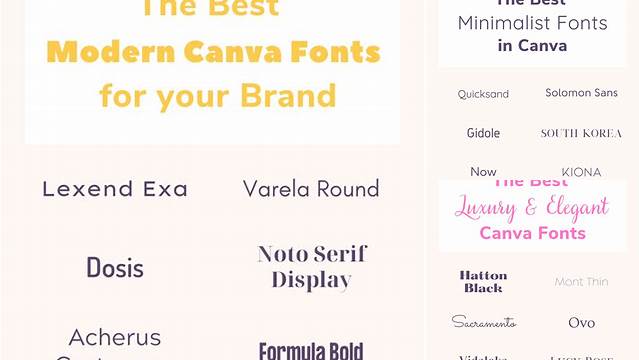
Coolest Fonts For Canva: The Ultimate Guide
Choosing the right font is crucial for creating visually appealing and effective designs in Canva. With countless options available, finding the perfect font can be overwhelming. This guide explores some of the coolest fonts for Canva, categorized to help you make informed decisions and elevate your designs. So, let's dive in and discover the perfect fonts to make your Canva projects shine!
1. Best Serif Fonts for Canva
Serif fonts are characterized by the small decorative strokes at the end of each character. They often convey a sense of tradition, authority, and elegance. When looking for the best serif fonts for Canva, consider options that are both readable and visually appealing. Popular choices include Playfair Display, known for its sophisticated and timeless appearance. It works well for headings and titles, adding a touch of class to any design. Another great option is Lora, a well-balanced serif font that is highly readable and suitable for body text. Its slightly curved serifs give it a modern yet elegant feel. For a more classic look, consider using Garamond, a font that has been used for centuries and remains a popular choice for its readability and timeless appeal. Remember, selecting the right serif font can significantly enhance the overall aesthetic of your Canva projects. So, experiment with different styles to find the perfect match for your design needs. Guys, don't underestimate the power of a good serif font!
2. Top Sans-Serif Fonts for Canva
Sans-serif fonts lack the decorative strokes found in serif fonts, giving them a cleaner and more modern appearance. The top sans-serif fonts for Canva are versatile and can be used in a wide range of designs, from logos and posters to social media graphics and presentations. One of the most popular choices is Montserrat, a geometric sans-serif font that is highly readable and works well in both headings and body text. Its clean lines and modern aesthetic make it a favorite among designers. Another excellent option is Open Sans, a humanist sans-serif font that is known for its readability and versatility. It is a great choice for body text, ensuring that your message is easily understood. For a more bold and impactful look, consider using Raleway, a sans-serif font with a distinctive style. It is particularly effective for headings and titles, drawing attention to your message. Choosing the right sans-serif font can make your Canva designs look professional and polished. So, take the time to explore different options and find the perfect fit for your projects.
3. Cool Display Fonts for Canva
Display fonts are designed to grab attention and make a statement. The cool display fonts for Canva are perfect for headings, titles, and other design elements that need to stand out. These fonts often have unique and eye-catching designs that can add personality and flair to your projects. One popular choice is Bebas Neue, a tall and narrow sans-serif font that is perfect for headlines and posters. Its bold and modern look makes it a great choice for creating impactful designs. Another interesting option is Lobster, a script font with a vintage feel. It is perfect for adding a touch of nostalgia to your designs. For a more playful and whimsical look, consider using Luckiest Guy, a hand-drawn font that is sure to catch the eye. These eye-catching fonts can transform your Canva designs from ordinary to extraordinary. So, experiment with different styles and find the perfect display font to make your message shine.
4. Best Script Fonts for Canva
Script fonts mimic the look of handwriting, adding a personal and elegant touch to your designs. The best script fonts for Canva can be used to create invitations, logos, and other designs that require a touch of sophistication. One popular choice is Brush Script MT, a classic script font that is widely recognized for its flowing lines and elegant curves. It is perfect for adding a touch of class to any design. Another great option is Pacifico, a casual and friendly script font that is perfect for creating a warm and inviting feel. For a more modern and stylish look, consider using Great Vibes, a script font with a clean and contemporary design. Selecting the right script font can add a touch of personality and charm to your Canva projects. So, explore different styles and find the perfect script font to convey your message.
5. Modern Fonts for Canva
Modern fonts in Canva are characterized by their clean lines, geometric shapes, and minimalist design. They are perfect for creating a sleek and contemporary look in your designs. One popular choice is Montserrat, a versatile sans-serif font that works well in a variety of contexts. Its clean and modern aesthetic makes it a favorite among designers. Another great option is Raleway, a sans-serif font with a distinctive style. It is particularly effective for headings and titles, drawing attention to your message. For a more subtle and understated look, consider using Lato, a sans-serif font that is known for its readability and neutrality. Experimenting with modern fonts is essential for achieving a contemporary feel in your Canva projects. So, try out different styles and find the perfect modern font to complement your designs.
6. Elegant Fonts for Canva
Elegant fonts in Canva exude sophistication, grace, and refinement. They are often used in designs that aim to convey a sense of luxury or exclusivity. One popular choice is Playfair Display, a serif font that is known for its elegant and timeless appearance. It works well for headings and titles, adding a touch of class to any design. Another great option is Lora, a well-balanced serif font that is highly readable and suitable for body text. Its slightly curved serifs give it a modern yet elegant feel. For a more delicate and refined look, consider using Mrs. Eaves, a serif font with a classic and timeless appeal. Choosing the right elegant font can elevate your Canva designs and create a lasting impression. So, explore different options and find the perfect elegant font to enhance your projects.
7. Professional Fonts for Canva
Professional fonts in Canva are essential for creating designs that convey credibility, competence, and reliability. These fonts are typically clean, readable, and versatile, making them suitable for a wide range of business and corporate applications. One popular choice is Open Sans, a humanist sans-serif font that is known for its readability and versatility. It is a great choice for body text, ensuring that your message is easily understood. Another excellent option is Roboto, a sans-serif font that is designed for readability on screens. It is a great choice for websites, presentations, and other digital media. For a more formal and authoritative look, consider using Arial, a classic sans-serif font that is widely used in business and corporate settings. Selecting the right professional font can enhance the credibility and impact of your Canva designs. So, take the time to explore different options and find the perfect fit for your projects.
8. Bold Fonts for Canva
Bold fonts in Canva are designed to grab attention and make a statement. They are perfect for headings, titles, and other design elements that need to stand out. One popular choice is Impact, a condensed sans-serif font that is widely used for headlines and posters. Its bold and impactful look makes it a great choice for creating attention-grabbing designs. Another excellent option is Bebas Neue, a tall and narrow sans-serif font that is perfect for headlines and posters. Its bold and modern look makes it a great choice for creating impactful designs. For a more subtle yet effective look, consider using Montserrat Bold, a bold version of the popular Montserrat font. Choosing the right bold font can make your Canva designs more impactful and memorable. So, experiment with different styles and find the perfect bold font to make your message shine.
9. Unique Fonts for Canva
Unique fonts in Canva can add personality and flair to your designs. These fonts often have distinctive and eye-catching designs that can help your projects stand out from the crowd. One popular choice is Amatic SC, a hand-drawn sans-serif font that is perfect for adding a touch of whimsy to your designs. Another interesting option is Lobster, a script font with a vintage feel. It is perfect for adding a touch of nostalgia to your designs. For a more playful and quirky look, consider using Luckiest Guy, a hand-drawn font that is sure to catch the eye. Exploring unique fonts is a great way to express your creativity and make your Canva designs more memorable. So, don't be afraid to experiment with different styles and find the perfect unique font to complement your projects.
10. Free Fonts for Canva
Free fonts for Canva are a great resource for designers on a budget. Canva offers a wide selection of free fonts that can be used in your projects without any cost. These fonts range from classic serif fonts to modern sans-serif fonts, providing you with a variety of options to choose from. Some popular free fonts for Canva include Open Sans, Montserrat, and Lato. These fonts are all highly readable and versatile, making them suitable for a wide range of designs. Utilizing free fonts is a smart way to save money while still creating high-quality designs in Canva. So, take advantage of the free font options available and enhance your projects without breaking the bank.
11. Font Pairing Tips for Canva
Font pairing is the art of combining two or more fonts in a way that is visually appealing and enhances the overall design. In Canva, effective font pairing can significantly improve the readability and aesthetic appeal of your projects. A general rule of thumb is to pair a serif font with a sans-serif font. For example, you could pair Playfair Display (a serif font) with Montserrat (a sans-serif font). This combination creates a balance between elegance and modernity. Another tip is to use fonts from the same family. For example, you could pair Montserrat Regular with Montserrat Bold. This creates a cohesive look while adding visual interest. Remember to consider the overall tone and style of your design when choosing fonts. Mastering font pairing can elevate your Canva designs and make them more visually appealing. So, experiment with different combinations and find the perfect pairings for your projects.
12. Using Canva Font Combinations
Canva font combinations are pre-designed pairings that take the guesswork out of choosing fonts. Canva offers a variety of font combinations that are carefully curated to work well together. These combinations can be a great starting point for your designs, providing you with a solid foundation to build upon. To use a Canva font combination, simply select the text element in your design and choose one of the pre-designed combinations from the font menu. You can then customize the fonts further to suit your specific needs. Leveraging Canva font combinations can save you time and effort while ensuring that your designs look professional and polished. So, explore the available combinations and find the perfect pairings for your projects.
13. How to Upload Fonts to Canva
Uploading fonts to Canva allows you to use custom fonts that are not included in the Canva font library. This can be particularly useful if you have a specific font that you want to use for branding purposes or if you simply want to add a unique touch to your designs. To upload a font to Canva, you must have a Canva Pro account. Once you have a Canva Pro account, you can upload fonts by going to the Brand Kit section of your account settings. From there, you can upload your font files and start using them in your designs. Uploading custom fonts can greatly expand your design possibilities in Canva. So, if you have a specific font that you want to use, consider upgrading to Canva Pro and uploading your font files.
14. Font Sizes for Canva Designs
Choosing the right font sizes for your Canva designs is crucial for ensuring readability and visual appeal. The ideal font size will depend on the specific design and the context in which it will be used. For headings and titles, you will typically want to use a larger font size to draw attention to the message. For body text, you will want to use a smaller font size that is comfortable to read. A general guideline is to use a font size of 16-18 points for body text and a font size of 24-36 points for headings. However, these are just guidelines, and you should adjust the font sizes as needed to achieve the desired effect. Experimenting with font sizes is essential for creating visually balanced and readable designs in Canva. So, try out different sizes and find the perfect fit for your projects.
15. Font Colors in Canva
Font colors play a significant role in the overall aesthetic and impact of your Canva designs. Choosing the right font color can enhance readability, draw attention to key messages, and create a cohesive visual theme. When selecting font colors, consider the background color and the overall color palette of your design. You will typically want to choose a font color that contrasts well with the background color to ensure readability. For example, if you have a light background, you will want to use a dark font color, and vice versa. You can also use font colors to highlight specific words or phrases, drawing attention to important information. Experimenting with font colors can greatly enhance the visual impact of your Canva designs. So, try out different colors and find the perfect combinations to complement your projects.
16. Kerning and Leading in Canva
Kerning refers to the spacing between individual letters in a font, while leading refers to the spacing between lines of text. Adjusting kerning and leading in Canva can significantly improve the readability and visual appeal of your designs. To adjust kerning in Canva, select the text element and use the kerning controls in the text formatting menu. You can increase or decrease the kerning to adjust the spacing between letters. To adjust leading in Canva, select the text element and use the line height controls in the text formatting menu. You can increase or decrease the line height to adjust the spacing between lines of text. Fine-tuning kerning and leading can make your Canva designs look more polished and professional. So, take the time to adjust these settings and optimize the readability of your text.
17. Font Effects in Canva
Font effects in Canva can add depth, dimension, and visual interest to your designs. Canva offers a variety of font effects, including shadows, outlines, and glows. To apply a font effect in Canva, select the text element and choose the desired effect from the Effects menu. You can then customize the effect further by adjusting the color, size, and opacity. Experimenting with font effects can transform your Canva designs and make them more visually appealing. So, try out different effects and find the perfect ones to enhance your projects.
18. Font Licensing for Canva Use
Font licensing is an important consideration when using fonts in Canva, especially for commercial purposes. Most fonts are protected by copyright, and you need to ensure that you have the appropriate license to use them in your designs. Canva's font library includes a mix of free and licensed fonts. Free fonts can typically be used for both personal and commercial purposes, but it's always a good idea to check the specific license terms to be sure. Licensed fonts may require you to purchase a license if you plan to use them for commercial purposes. Understanding font licensing is crucial for avoiding copyright infringement and ensuring that you are using fonts legally. So, take the time to review the license terms for each font before using it in your Canva designs.
19. Best Fonts for Logos in Canva
Choosing the best fonts for logos in Canva is crucial for creating a brand identity that is both memorable and visually appealing. A logo is the face of your brand, and the font you choose can communicate a lot about your company's personality and values. When selecting a logo font, consider your target audience and the overall message you want to convey. For a modern and tech-savvy brand, a clean sans-serif font like Montserrat or Raleway might be a good choice. For a more traditional and established brand, a serif font like Playfair Display or Lora might be more appropriate. Selecting the right logo font can make your brand stand out and create a lasting impression. So, explore different options and find the perfect font to represent your company.
20. Fonts for Social Media Graphics in Canva
Fonts for social media graphics in Canva need to be eye-catching, readable, and on-brand. Social media is a fast-paced environment, and you need to grab attention quickly. When choosing fonts for your social media graphics, consider using a combination of a bold display font for headings and a clean sans-serif font for body text. This will help you create a visually appealing and easy-to-read design. Some popular font choices for social media graphics include Bebas Neue, Montserrat, and Open Sans. Using the right fonts can enhance the effectiveness of your social media campaigns and help you reach a wider audience. So, experiment with different styles and find the perfect fonts to make your graphics stand out.
21. Fonts for Presentations in Canva
Fonts for presentations in Canva should be clear, readable, and professional. Your presentation should be easy to follow, and the fonts you choose can play a big role in that. When selecting fonts for your presentations, consider using a clean sans-serif font like Open Sans or Roboto for body text. These fonts are highly readable and work well on screens. For headings and titles, you can use a slightly bolder font to draw attention to the message. Avoid using overly decorative or distracting fonts, as they can make your presentation look unprofessional. Choosing the right fonts can enhance the clarity and impact of your presentations. So, take the time to select fonts that are both readable and visually appealing.
22. Fonts for Invitations in Canva
Fonts for invitations in Canva can add a touch of elegance, charm, and personality to your special events. Invitations are a reflection of your style and the tone of your event, so it's important to choose fonts that convey the right message. For a formal event like a wedding, a script font like Great Vibes or a classic serif font like Playfair Display might be a good choice. For a more casual event like a birthday party, a playful sans-serif font like Amatic SC or a hand-drawn font like Luckiest Guy might be more appropriate. Selecting the right fonts can make your invitations stand out and create a lasting impression. So, explore different options and find the perfect fonts to complement your event.
23. Canva Font Size Chart
Having a Canva font size chart can be super helpful when you're trying to figure out the best font sizes for different design elements! Basically, this chart gives you a handy guide for choosing sizes that are readable and visually appealing. For example, you might want to use a larger font size for headings to grab attention and a smaller, more readable size for the body text. A font size chart helps you maintain consistency and ensures your designs look professional. It's all about making sure everything is easy on the eyes and gets the message across effectively, guys!
24. How to Change Font in Canva Mobile App
Changing the font in the Canva mobile app is a piece of cake! First, you just tap on the text box you want to edit. Then, look for the font option in the toolbar that pops up – it usually looks like a little text icon. Tap that, and a whole bunch of font choices will appear! Scroll through, pick the one you like, and boom, you've got a new font! You can also adjust the size, color, and other settings right there. It's super convenient for making quick edits on the go. So, changing fonts in Canva mobile is pretty easy and lets you create awesome designs wherever you are.
25. Canva Font Generator Tools
Canva font generator tools are awesome for finding cool and unique font combinations! These tools help you experiment with different fonts and see how they look together before you commit to a design. Some tools even suggest pairings that you might not have thought of, which can really elevate your project. Just type in your text, play around with the options, and see what catches your eye! It’s a great way to get creative and make sure your designs stand out. Who knows, you might discover your next favorite font combo!
26. Combining Canva Fonts with Graphics
Alright, so combining Canva fonts with graphics is where the magic really happens! You want to make sure your fonts and graphics complement each other, not clash. For example, if you're using bold, modern graphics, pair them with a clean, sans-serif font like Montserrat or Raleway. If your graphics are more whimsical, a playful script font might be perfect. Think about the overall vibe you're going for and choose fonts that enhance that feeling. Don’t be afraid to experiment and see what works best – it’s all about finding the right balance to make your designs pop!
27. Canva Font Styles and Effects
Canva has a ton of font styles and effects that can really make your text stand out! You can add shadows, outlines, and even funky glows to your fonts. Plus, you can curve text, change the spacing, and play with transparency. These effects can transform a simple font into something super eye-catching and unique. Just select your text, head over to the effects panel, and start experimenting! It's a fun way to add some personality to your designs and make them really grab attention.
28. Choosing Fonts Based on Design Theme in Canva
Choosing fonts based on the design theme in Canva is crucial for creating a cohesive and effective visual. If you're designing something for a corporate client, you'll probably want to stick with professional and clean fonts like Open Sans or Roboto. For a fun, creative project, you can get away with using more playful and unique fonts like Amatic SC or Pacifico. Think about the overall feeling you want to convey and choose fonts that match that vibe. Matching fonts to your design theme helps create a strong and consistent message.
29. Troubleshooting Font Issues in Canva
Sometimes, you might run into font issues in Canva, like a font not displaying correctly or looking different than expected. First, try refreshing your browser or the Canva app. If that doesn't work, make sure the font is actually supported by Canva and that you've uploaded it correctly if it's a custom font. Clear your browser's cache and cookies, or try using a different browser. If all else fails, reach out to Canva support – they’re usually pretty helpful in figuring out what’s going on! Troubleshooting these issues can help ensure your designs look perfect.
30. Staying Updated on New Canva Fonts
Staying updated on new Canva fonts is a great way to keep your designs fresh and modern! Canva regularly adds new fonts to its library, so it's worth checking back often to see what's new. Follow Canva's social media channels and blog for announcements about new font releases. You can also explore the font library within Canva and filter by "newly added" to see the latest options. Keeping an eye on new fonts can inspire your creativity and help you discover unique fonts that will make your designs stand out!